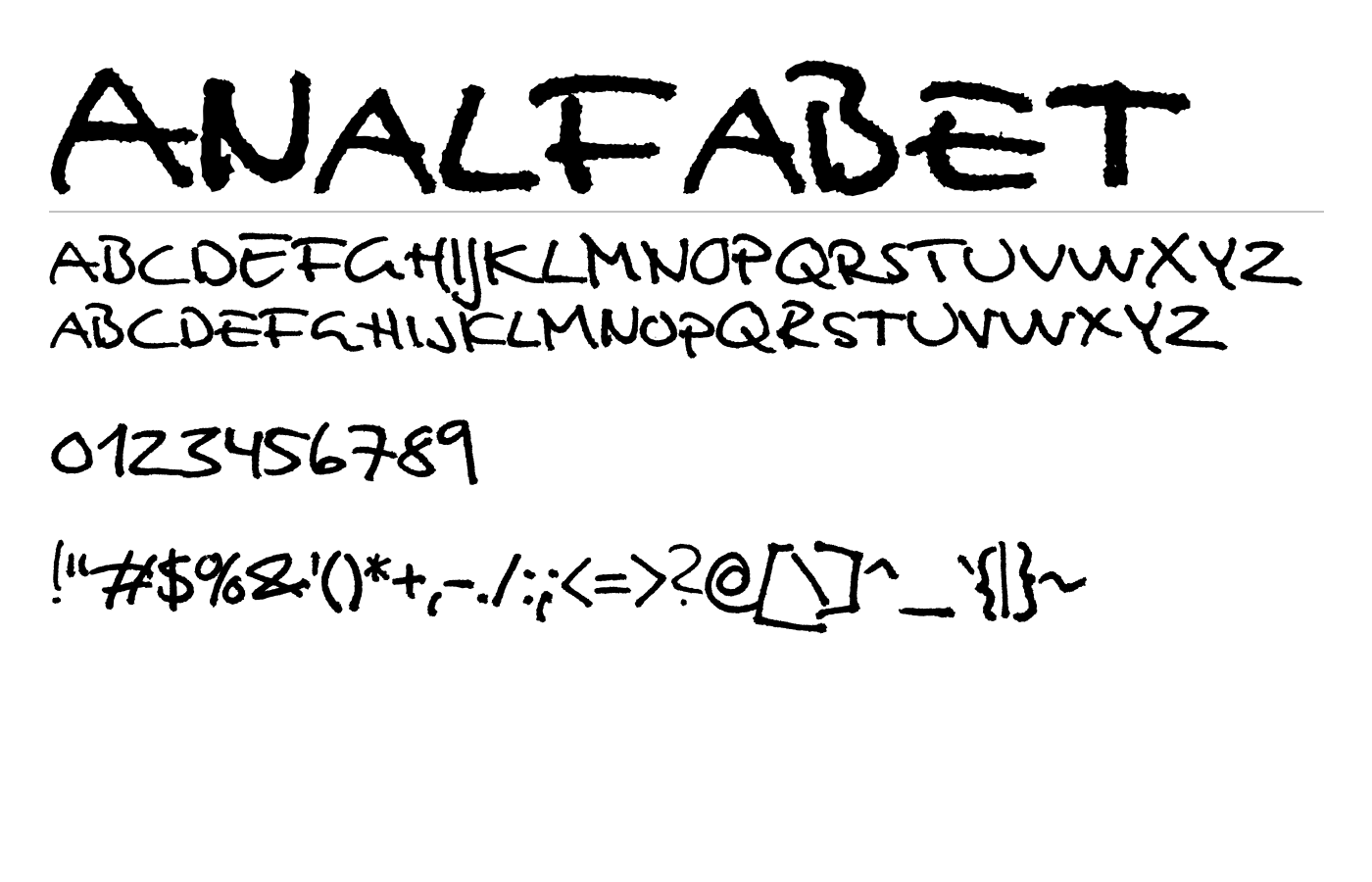
Analfabet is an expressive handwritten font with a raw, textured style that mimics natural, imperfect brush strokes. Its irregular letterforms and uneven weight create a casual, artistic feel, making it perfect for creative projects, informal branding, or designs that want to evoke personality and spontaneity. This font works well in headlines, posters, and unique logo designs where a handmade, authentic touch is desired.
Analfabet Font
About Analfabet Font
| Font family | Analfabet Font |
| Designer | Espen M. Kvalheim |